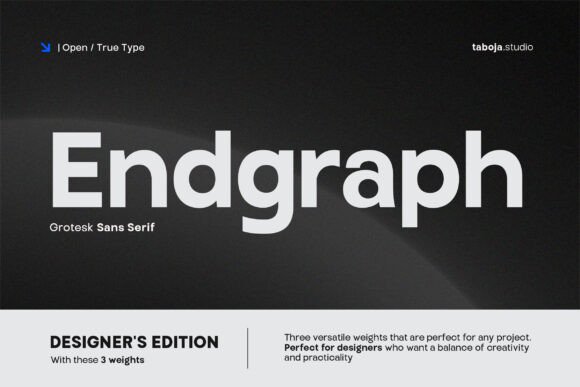
Unlock Endless Creativity with TBJ Endgraph Designer’s Edition
As a designer or crafty enthusiast, you’re constantly on the lookout for the perfect font to elevate your projects. Look no further than TBJ Endgraph Designer’s Edition, a versatile font family that offers three unique weights to suit any creative need. In this article, we’ll dive into the world of TBJ Endgraph and explore how it can bring a contemporary edge to your designs.
The Power of Versatility: 3 Weights for Limitless Creativity
TBJ Endgraph Designer’s Edition is more than just a font – it’s a creative tool that adapts effortlessly to various design needs. The font family consists of three weights: Light, Medium, and Bold. Each weight is carefully crafted to provide a consistent and professional look across all your creative works.
- Light Weight: Perfect for body text, the light weight of TBJ Endgraph provides an elegant and refined look that’s easy on the eyes. Its subtle presence makes it ideal for lengthy paragraphs, articles, and blog posts.
- Medium Weight: The medium weight is a versatile choice for everyday design needs. It’s suitable for headings, titles, and short paragraphs, making it a great all-around font for any project.
- Bold Weight: Make a statement with the bold weight of TBJ Endgraph. Designed for headlines, titles, and emphasis, this weight packs a punch and grabs attention without overwhelming the senses.
Elegance and Flexibility for Any Project
TBJ Endgraph Designer’s Edition is designed to provide the flexibility and elegance you need for any project. Whether you’re working on:
- Print Materials: Business cards, brochures, posters, and flyers
- Digital Media: Websites, social media graphics, and email newsletters
- Crafting and DIY: Invitations, scrapbooking, and handmade cards
TBJ Endgraph adapts seamlessly to each medium, ensuring your designs look professional and visually appealing.
Why Choose TBJ Endgraph?
So, what sets TBJ Endgraph apart from other fonts? Here are just a few reasons why designers and crafters love this font family:
- Unique Character: TBJ Endgraph boasts a distinctive character that adds a touch of sophistication to any design.
- Legibility: The font’s clear and readable design makes it perfect for both headings and body text.
- Customization: With three versatile weights, you can mix and match to create a unique look that reflects your brand or personal style.
TBJ Endgraph Designer’s Edition is more than just a font – it’s a creative partner that helps you bring your ideas to life. With its three versatile weights, elegant design, and flexibility, this font family is perfect for designers, crafters, and anyone looking to add a touch of sophistication to their projects. So why wait? Unlock endless creativity with TBJ Endgraph and take your designs to the next level.